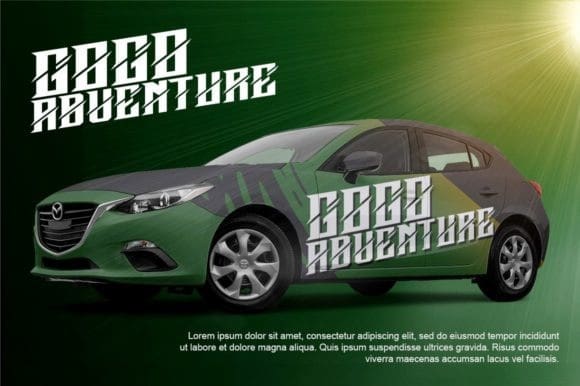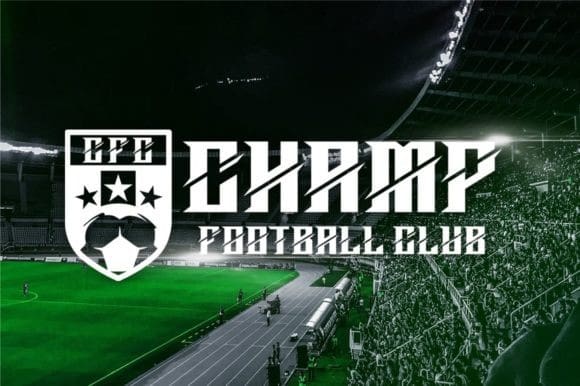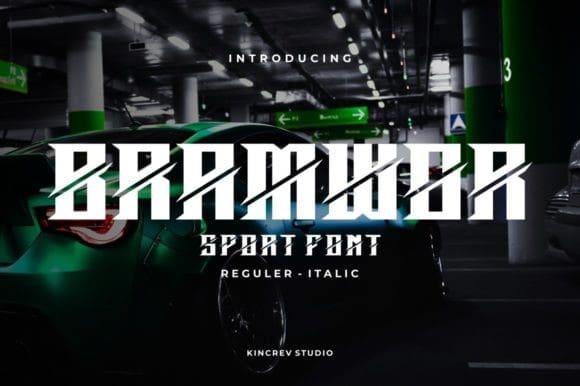
Bramwor Display Font
Bramwor Display Font is a bold, thick lettered and assertive display font. This font is imposing and features uniquely shaped letters, and as a result, it will easily match a wide range of creations that require a distinct touch.